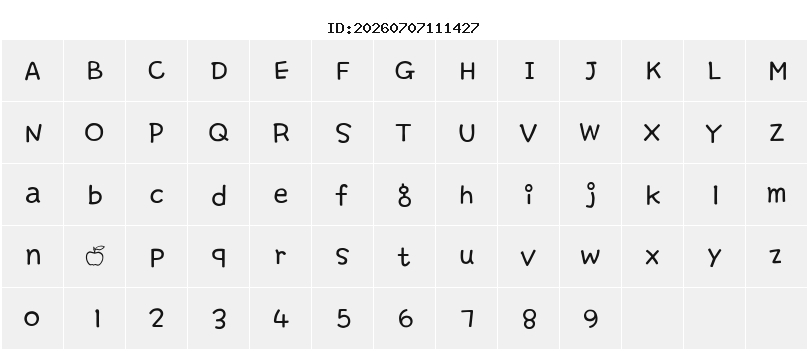
Delicious Apple by cyn Preview
• Font Name: Delicious Apple by cyn
• Full Font Name: Delicious Apple by cyn
• Version: Version 1.01 January 6, 2013
• Designer: Goodfont Inc.
• Manufacturer: Goodfont Inc.
About Delicious Apple by cyn.ttf
Delicious Apple by cyn.ttf is a modern, elegant sans-serif font designed for ultimate readability and visual harmony. Perfect for branding, headlines, web design, and print materials.